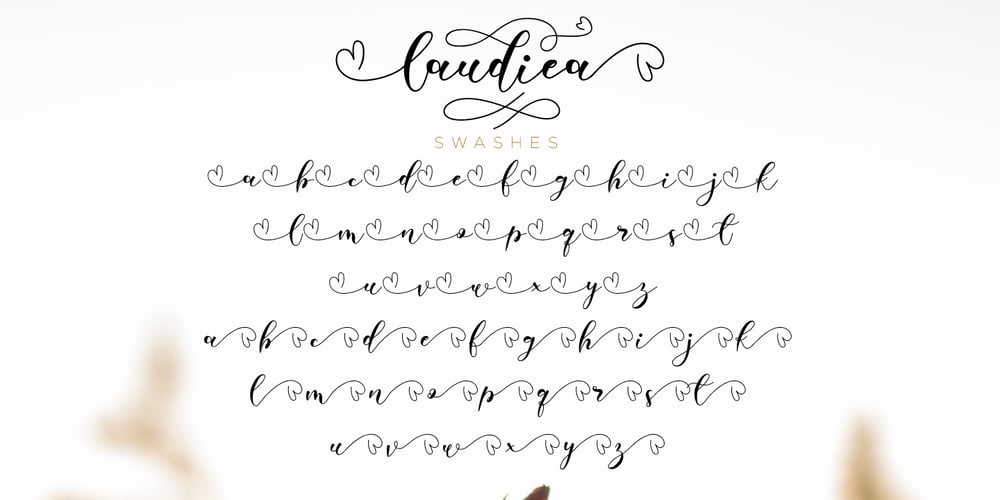
Laudiea
Laudiea font
Laudiea Font Family was designed by Novia Himatunnisa and published by Nissa Nana. Laudiea contains 1 styles and family package options. Laudiea is a beautiful script font with a classy, elegant, and modern look. It will add a handwritten touch to any design project!